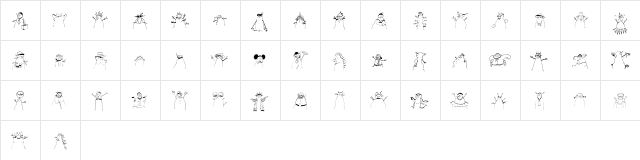
CCSnowmanySnowmen Regular
| Foundry | Active Images |
| Designer | Nathalie Gavet |
Design Context for CCSnowmanySnowmen Typeface
CCSnowmanySnowmen is a composed and adaptable typeface that performs quietly and consistently across a wide range of design contexts.